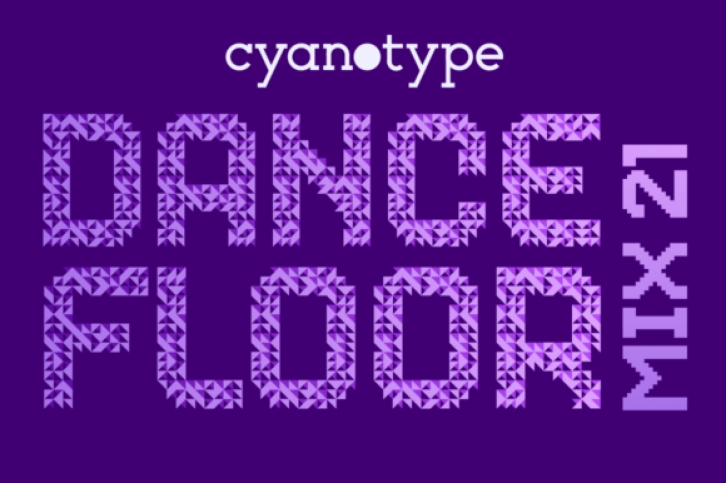
Dance Floor Mix 21 is a fusion of display fonts, bitmap fonts, layer fonts and geometric pattern systems. The styles allow to mix and match to create multiple versions. This mix contains 2 of 64 styles. Use them along with the other Dance Floor Mixes (from 2-20).